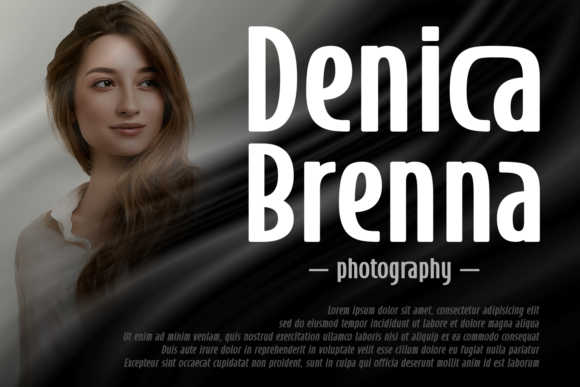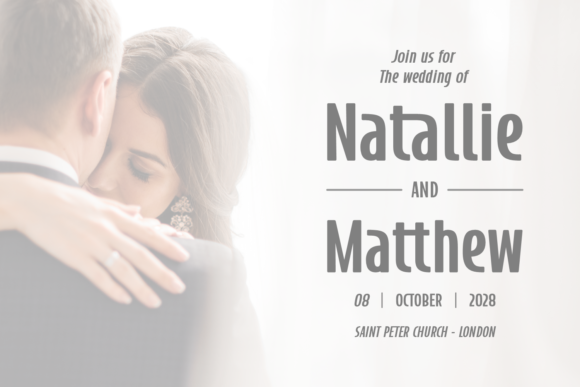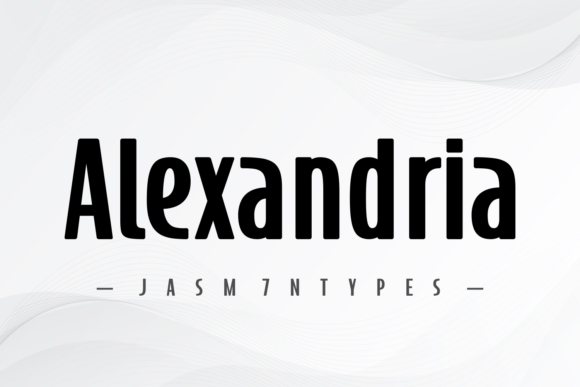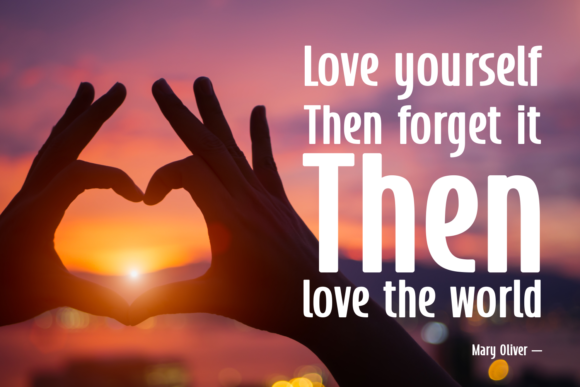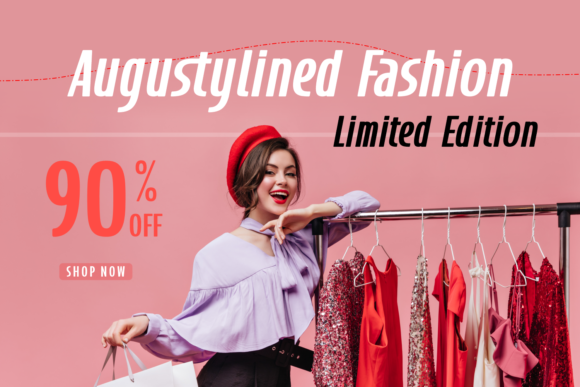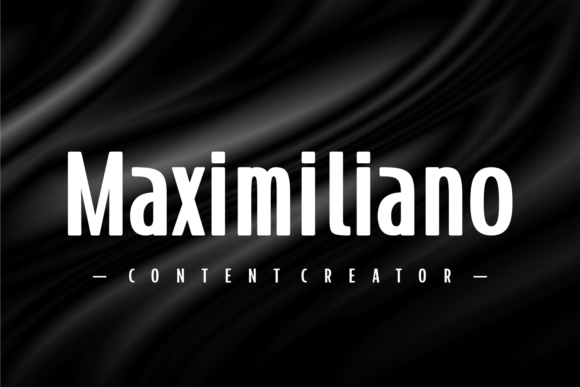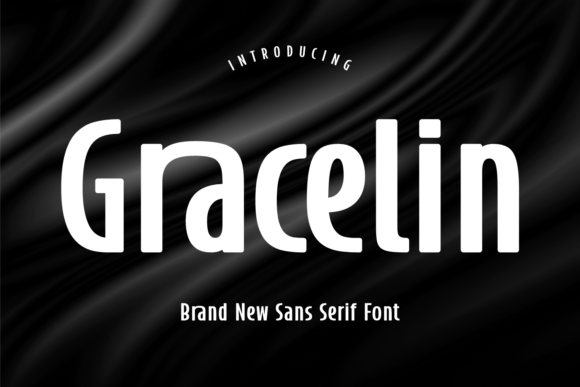
Gracelin Font: Elevate Your Designs with a Cool and Bold Display Font
Are you looking for a font that can add a touch of sophistication and elegance to your designs? Look no further than the Gracelin font. This cool and bold display font is perfect for designers and crafters who want to create stunning visual content that stands out from the crowd. In this article, we’ll explore the features and benefits of the Gracelin font, and show you how to make the most of this amazing font.
What is Gracelin Font?
Gracelin is a modern display font that is designed to make a statement. Its bold and cool design makes it perfect for use in a variety of design projects, from logos and branding to posters and social media graphics. The font is PUA encoded, which means that you can access all of the glyphs and swashes with ease, giving you maximum creative control.
Key Features of Gracelin Font
• PUA Encoding: The Gracelin font is PUA encoded, which means that you can access all of the glyphs and swashes with ease. This makes it easy to customize your text and add unique touches to your designs.
• Bold and Cool Design: The Gracelin font has a bold and cool design that is perfect for making a statement. Its modern style makes it ideal for use in a variety of design projects.
• High-Quality Design: The Gracelin font is designed to high standards, ensuring that it looks great in any design project. The font is carefully crafted to ensure that it is clear and legible, even at small sizes.
Benefits of Using Gracelin Font
There are many benefits to using the Gracelin font in your designs. Here are just a few:
• Adds Visual Interest: The Gracelin font adds visual interest to your designs, making them more engaging and attention-grabbing.
• Versatile: The Gracelin font is versatile and can be used in a variety of design projects, from logos and branding to posters and social media graphics.
• Easy to Use: The Gracelin font is easy to use, even for designers who are new to working with fonts. The PUA encoding makes it easy to access all of the glyphs and swashes.
Tips for Getting the Most out of Gracelin Font
Here are a few tips for getting the most out of the Gracelin font:
• Experiment with Different Sizes: The Gracelin font looks great at a variety of sizes, from large headings to smaller body text. Experiment with different sizes to find the look that works best for your project.
• Use the Glyphs and Swashes: The PUA encoding of the Gracelin font gives you access to a wide range of glyphs and swashes. Use these to add unique touches to your designs.
• Combine with Other Fonts: The Gracelin font looks great on its own, but it can also be combined with other fonts to create a unique look. Experiment with different font combinations to find the one that works best for your project.
The Gracelin font is a cool and bold display font that is perfect for designers and crafters who want to create stunning visual content. Its PUA encoding makes it easy to access all of the glyphs and swashes, giving you maximum creative control. With its bold and cool design, high-quality construction, and versatility, the Gracelin font is a great addition to any design project.